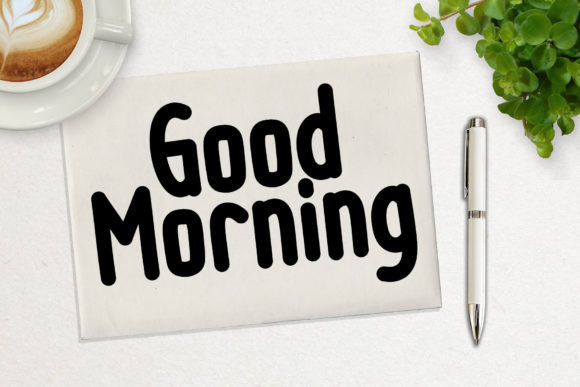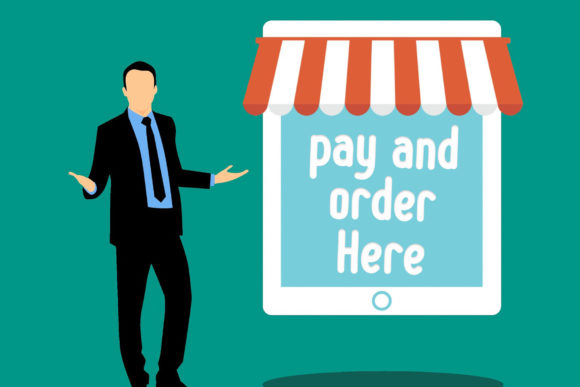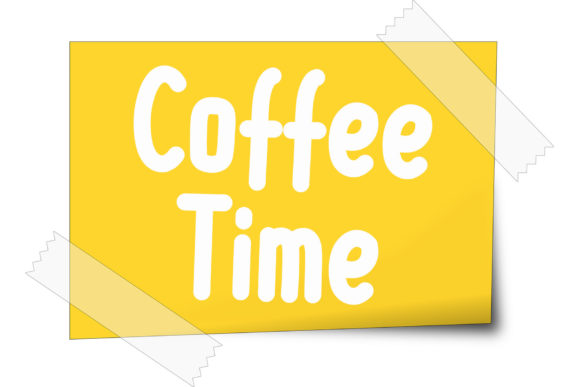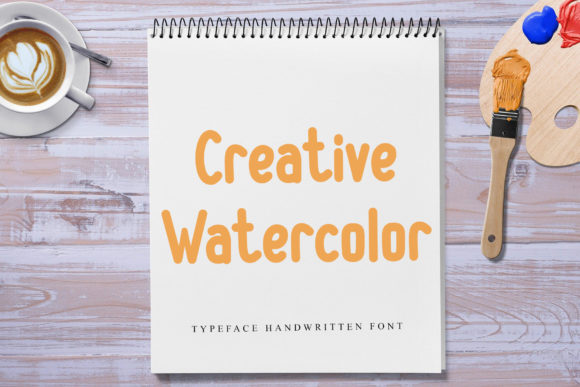
About Royalblue Font
Royalblue is a bold and unique handwritten font. Simple and easy to use, this font will be very beautiful if you mix it with your various craft designs.